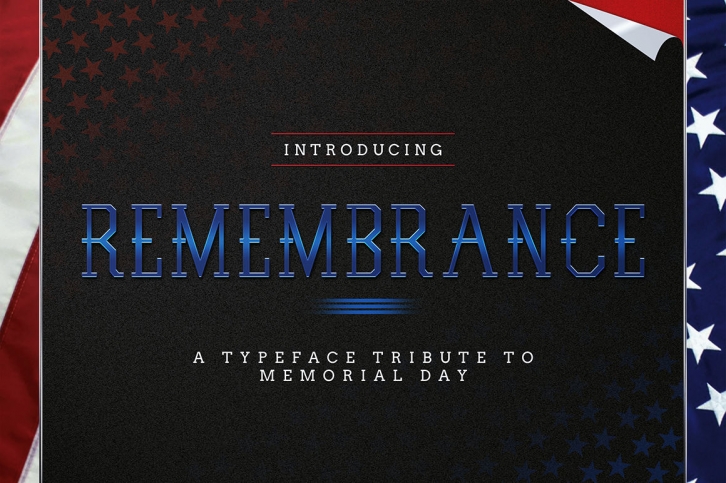
Remembrance are the serifs typeface which tribute to U.S. memorial day. It's include uppercase and lowercase and western/roman character. Remembrance suitable for both headline and sub headline text, suitable both for title and movie credits.
Regular (Clean), Italic & Outline versions, Uppercase characters, Lowercase characters, Punctuation, Numbers, and Multilanguage Western/Roman Character